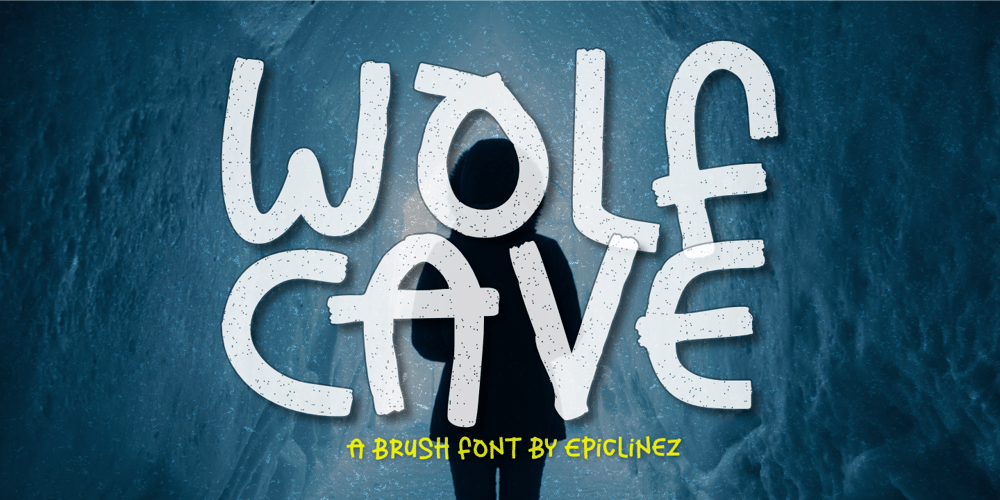
Wolfcave
Wolfcave Font Family was designed by Aldy Sidik and published by Epiclinez. Wolfcave contains 1 styles and family package options. Introducing Wolfcave, a rugged brush font that embodies strength and character in every stroke. Designed for those who seek to make a bold statement, this textured typeface captures the essence of raw power while remaining versatile enough for various applications. Whether you’re creating eye-catching posters, striking headlines, or memorable logotypes, Wolf Cave adds an authentic touch that resonates with audiences.Wolfcave features :- Standard Latin- Numbers, symbols, and punctuations- Multilingual Support.- Fully accessible without additional design software- Simple Installations- Works on PC & MacThank You.